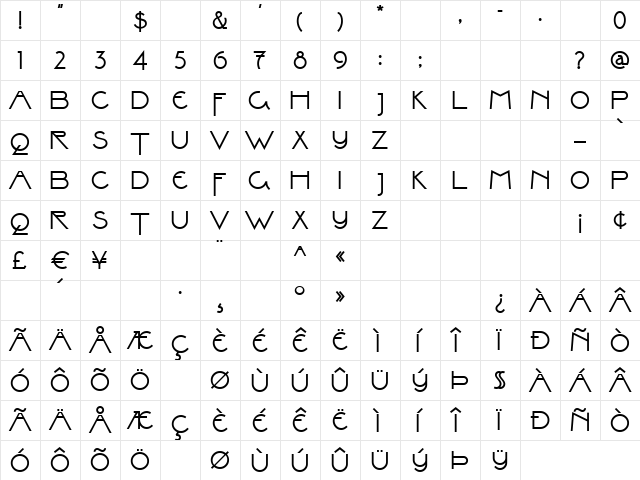
ValleyGrrrlNF Regular
Design Context for ValleyGrrrlNF Typeface
ValleyGrrrlNF takes a measured approach to typography — its balanced proportions and neutral character make it a reliable workhorse for both digital and print work.